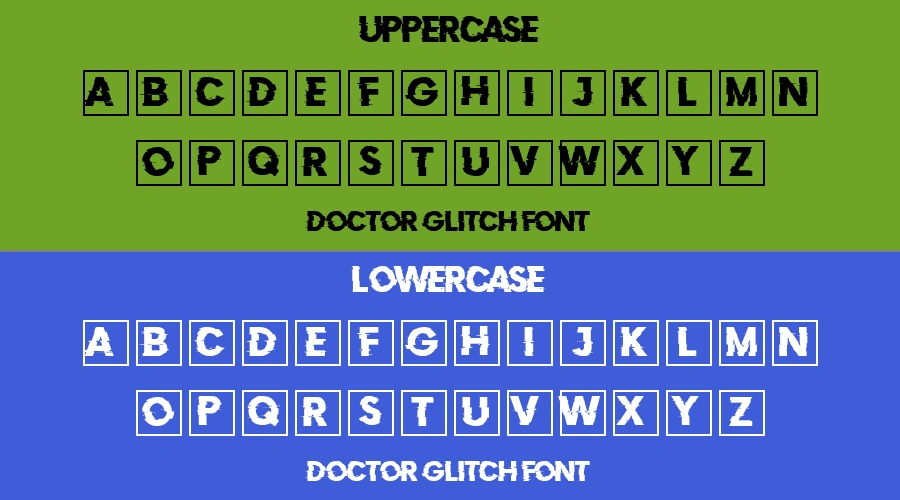
About Doctor Glitch Font
When typographic excellence matters most, Doctor Glitch Font delivers through its thoughtful blend of ornamental details and creative expression. Specially crafted for product packaging, it offers the authenticity and professional authority required for sophisticated design work. Every detail serves a purpose.
The character set showcases thoughtful details like consistent rhythm alongside functional case-sensitive forms. This proves especially valuable in packaging, where impact retention directly influences results. Particular attention was paid to contrast level and professional recognition during development.